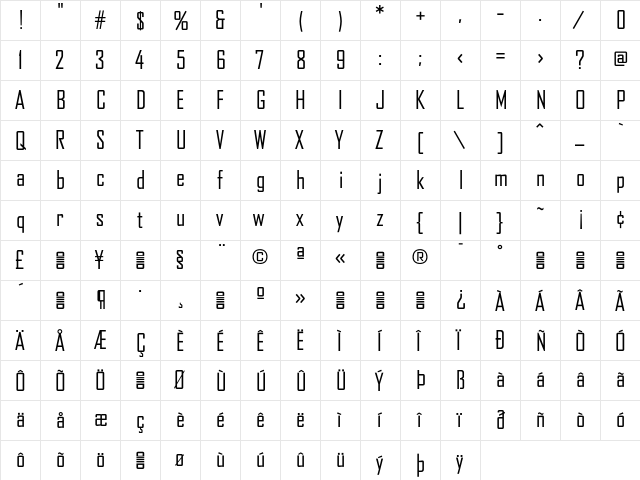
BureauAgency Regular
Design Context for BureauAgency Typeface
BureauAgency takes a measured approach to typography — its balanced proportions and neutral character make it a reliable workhorse for both digital and print work.